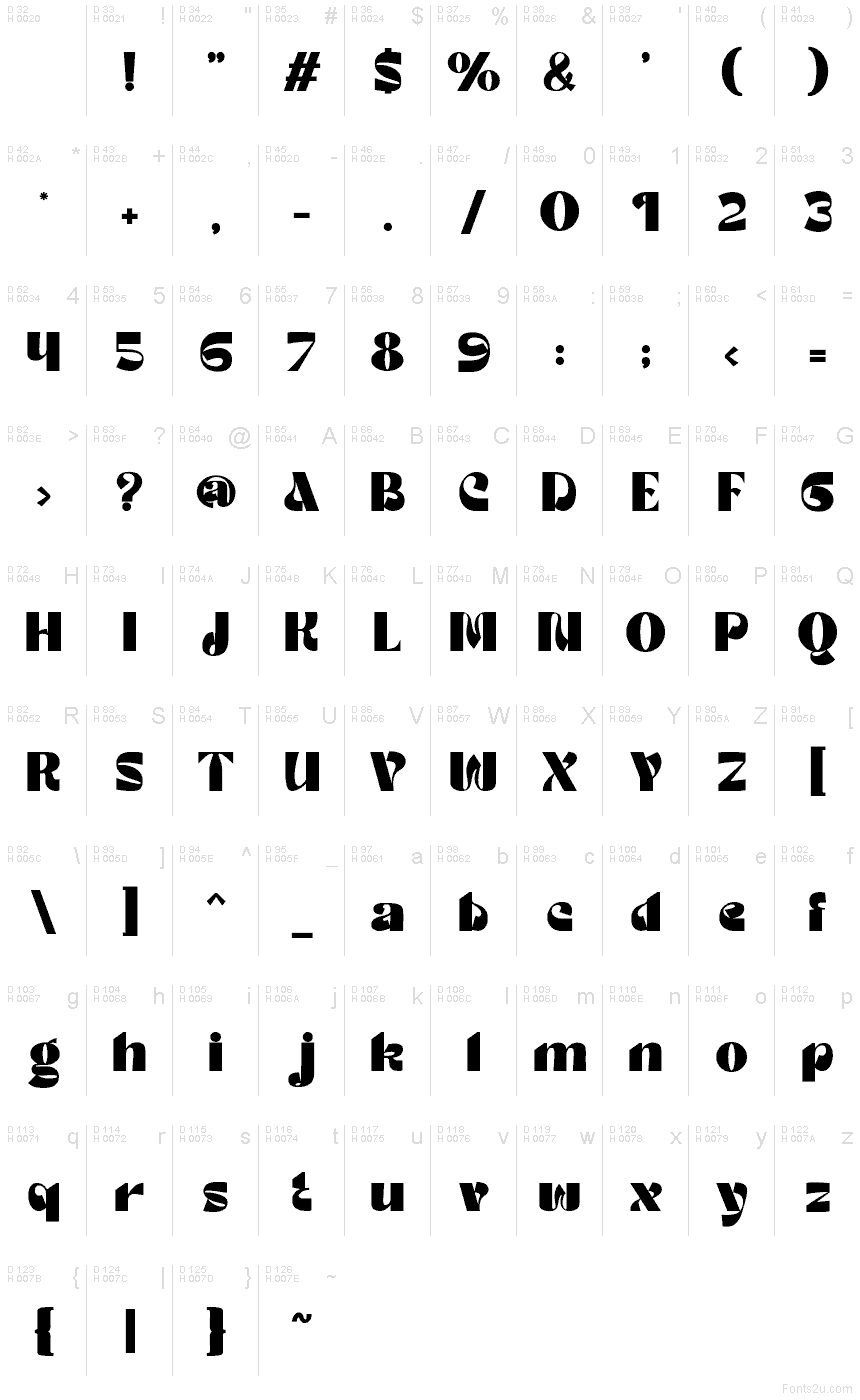
Blue Pastel
Blue Pastel font by PutraCetol Studio mixes retro inspiration and art deco influence for a high-contrast appearance. The bold display font uses geometric shapes to bring an interesting modern aesthetic to the table, with a unique vibe suitable for all boys and girls. This is a fun and free option you won’t want to miss out on!